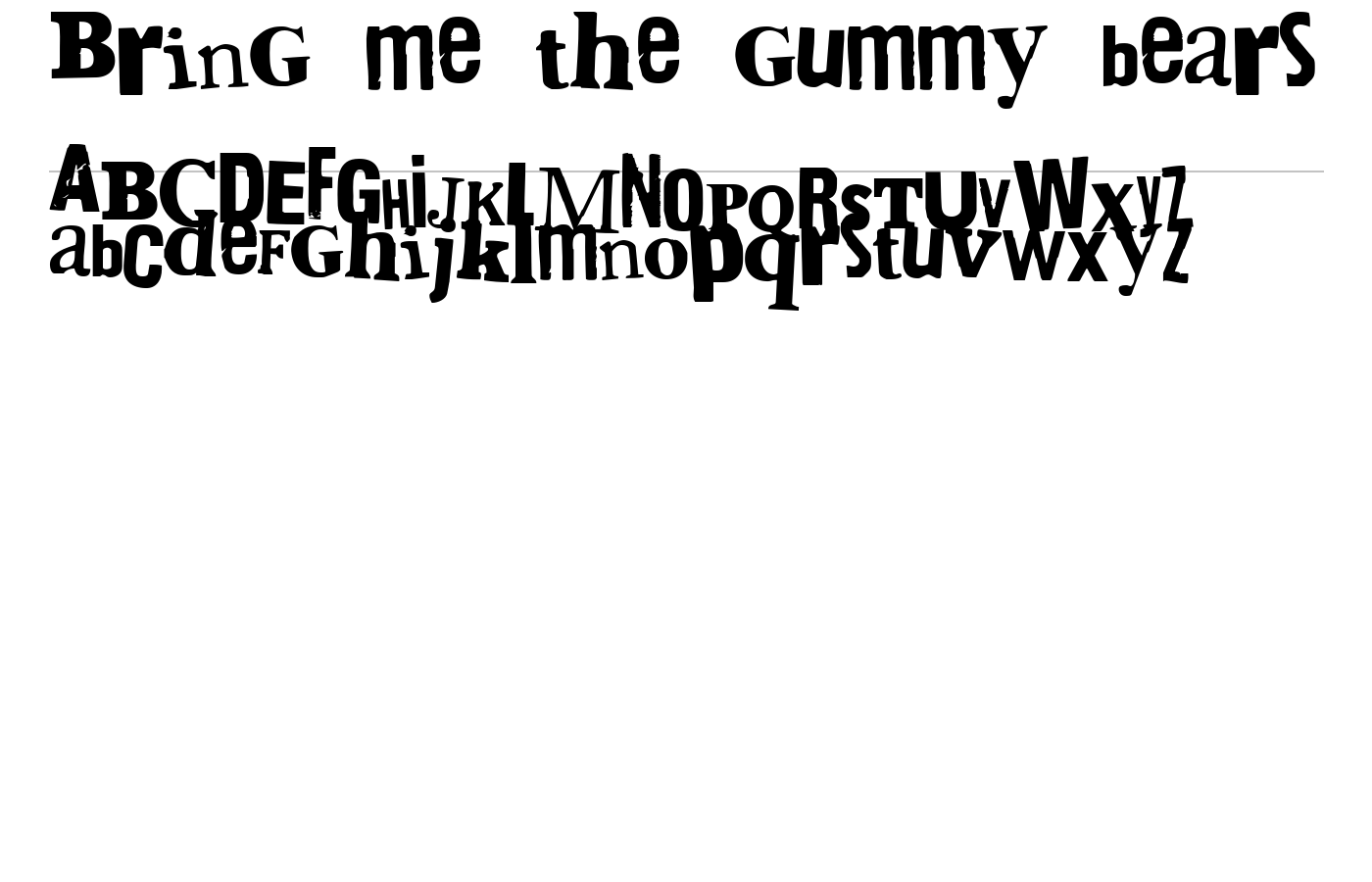
Bring me the gummy bears is a quirky, playful display font with irregular letter shapes and a bold, chunky feel mixed with whimsical strokes. Its uneven, hand-drawn style makes it perfect for fun, informal designs like children's books, party invitations, or lighthearted branding. This font shines in headlines and creative projects where a casual, friendly vibe is desired.
Bring me the gummy bears Font
About Bring me the gummy bears Font
| Font family | Bring me the gummy bears Font |
| Designer | Fred - 28fonts |